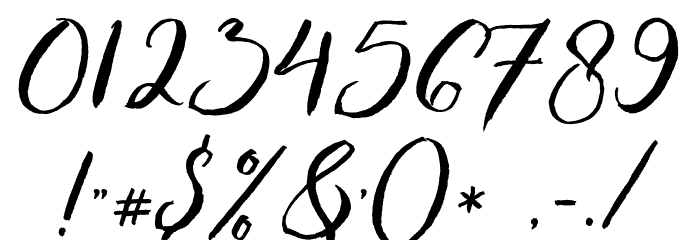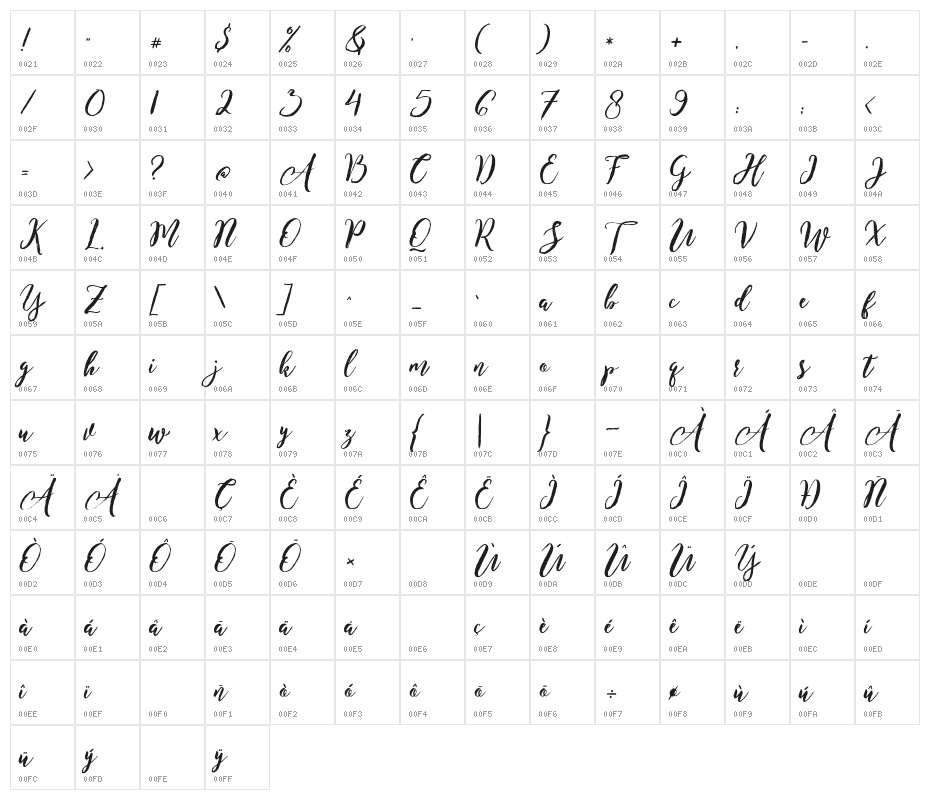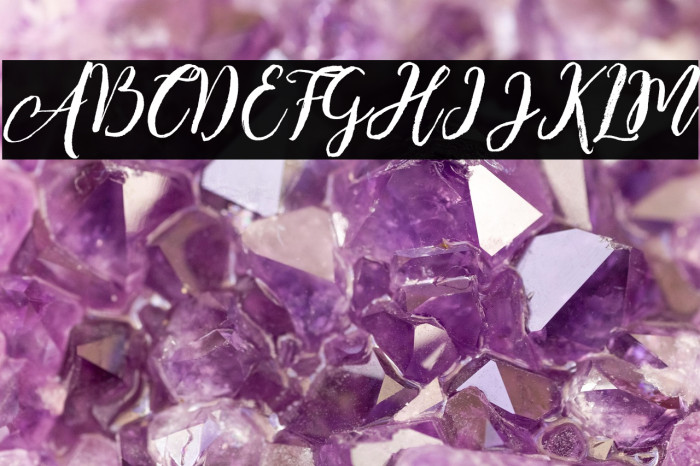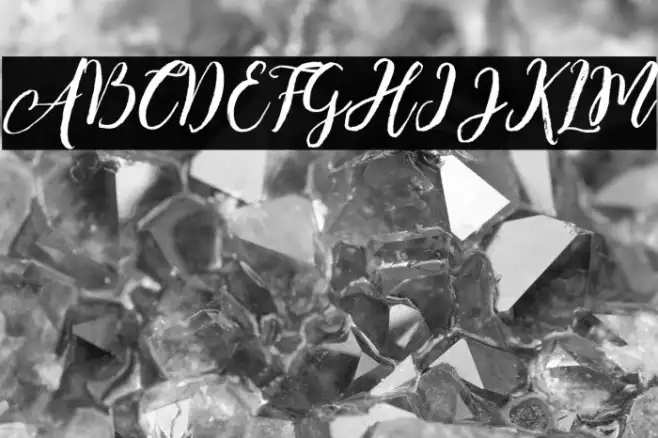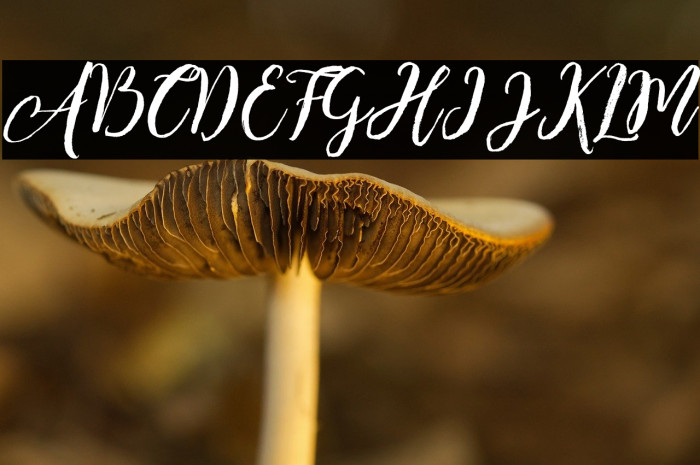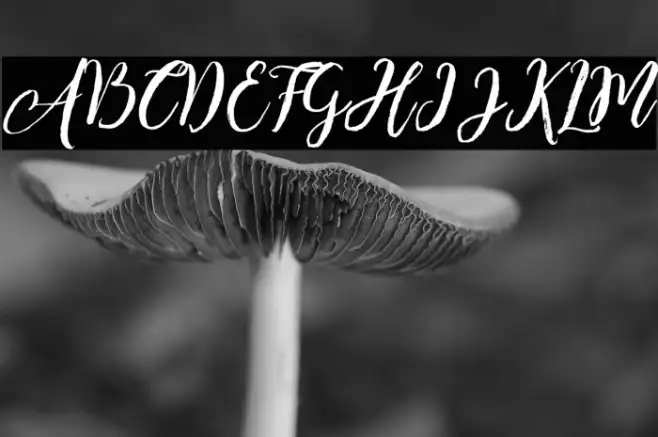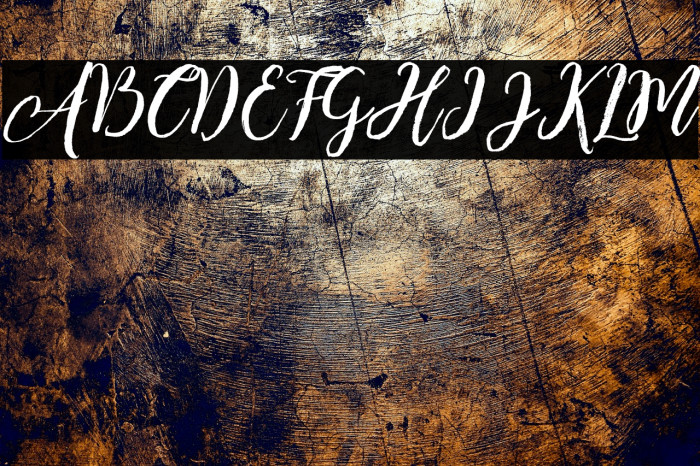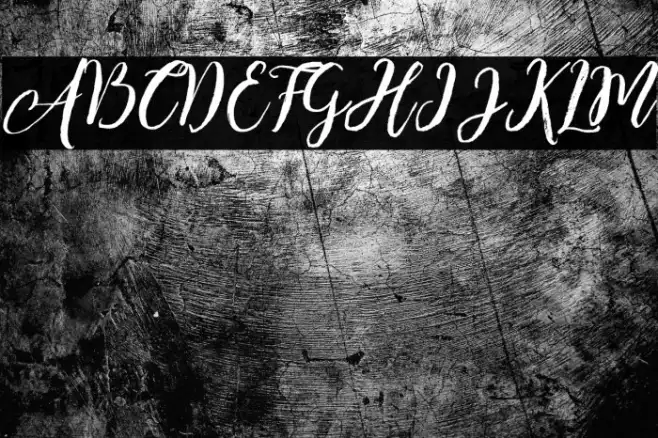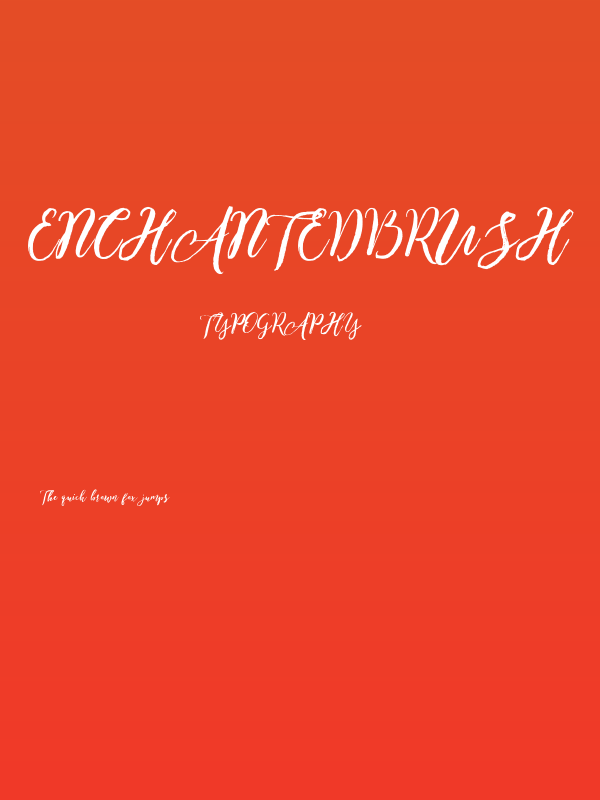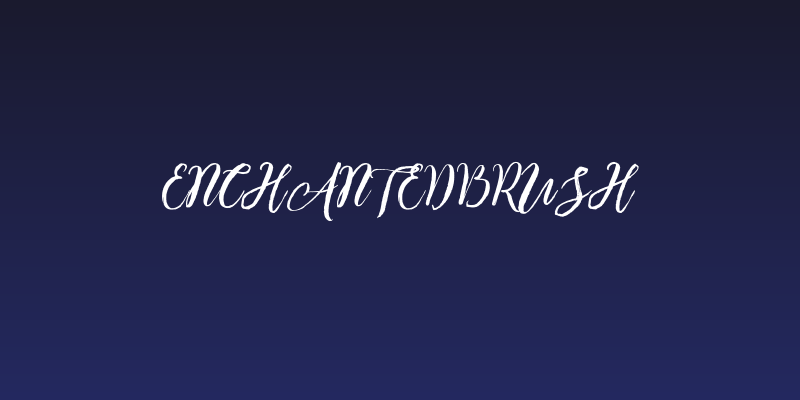
EnchantedBrush Font
EnchantedBrush Description
This font exudes a whimsical and artistic flair, characterized by its fluid, brush-like strokes that convey a sense of movement and elegance. The uppercase letters are bold and dynamic, with sweeping curves and varying line thickness that add a touch of drama. The lowercase letters maintain a consistent style, offering a harmonious blend of formality and creativity. Numbers and special characters follow the same expressive style, ensuring a cohesive look across all text elements. The overall design is reminiscent of hand-painted calligraphy, making it ideal for projects that require a personal and artistic touch.
| Proposed Projects | Ideal for wedding invitations, greeting cards, branding projects, and artistic posters. |